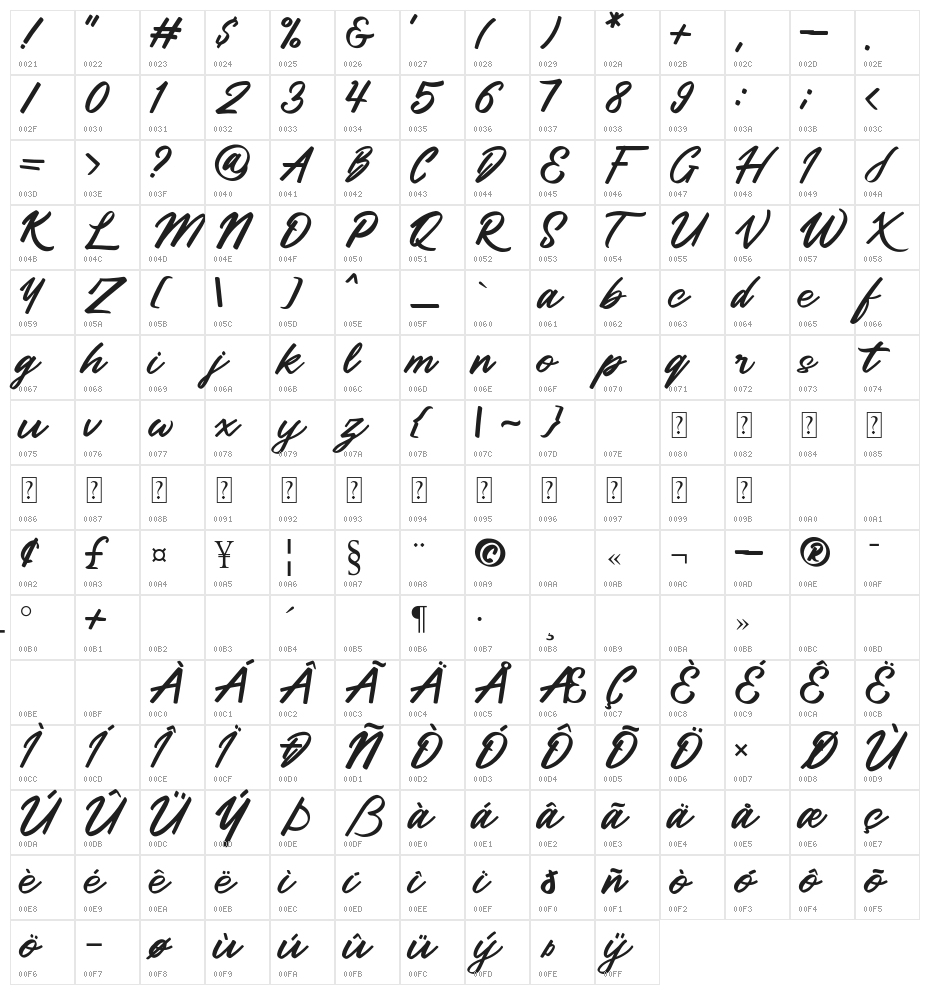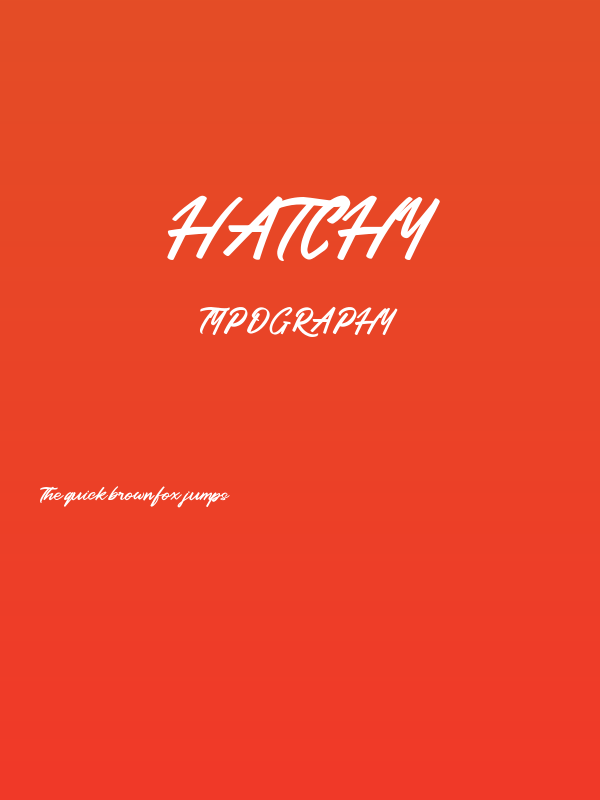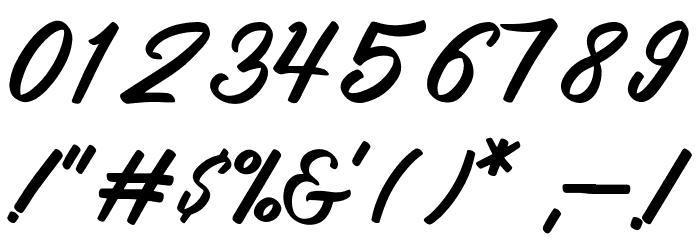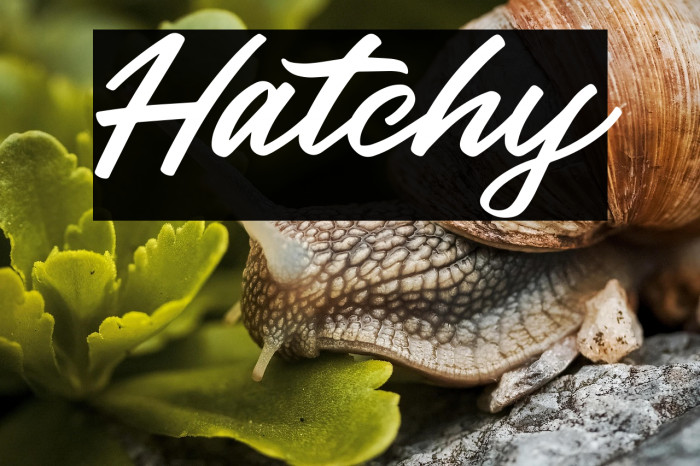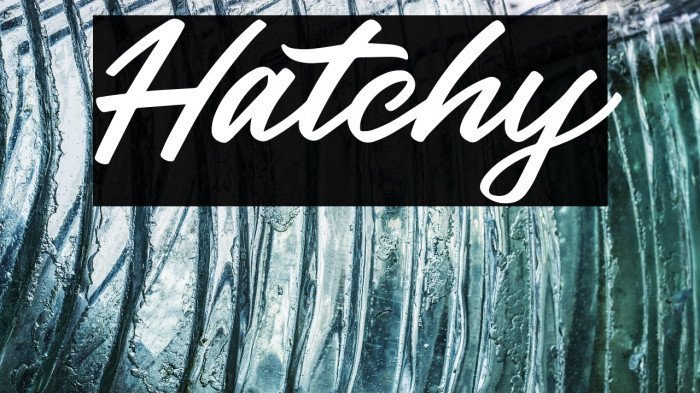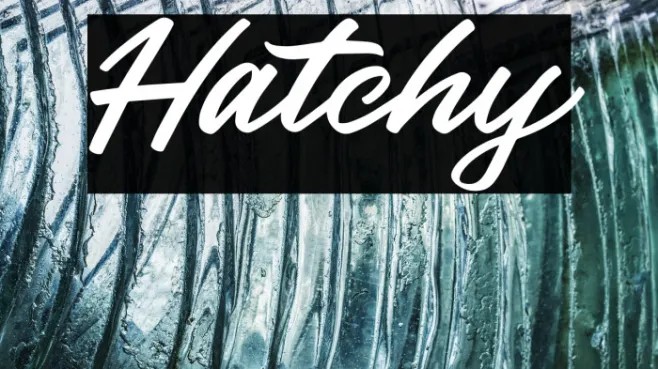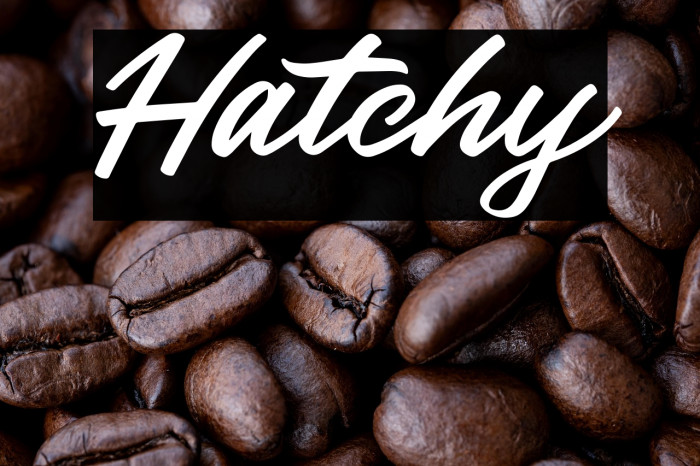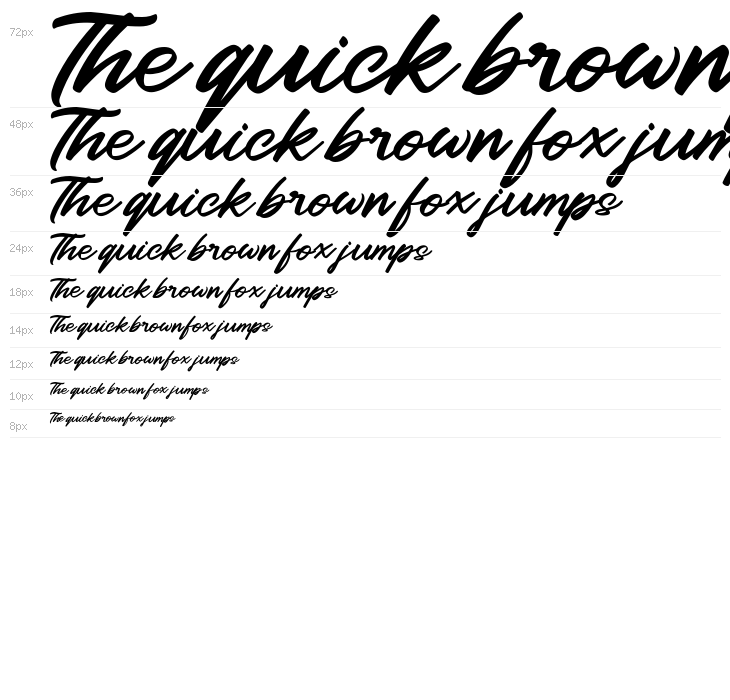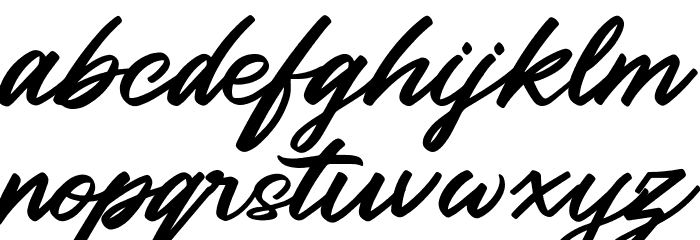
Hatchy Font
Hatchy Description
This font exhibits a dynamic and flowing script style, characterized by its cursive, handwritten appearance. The letters are connected, giving it a seamless and elegant look. The strokes are bold and confident, with a slight slant that adds to its fluidity. The uppercase letters are distinct and prominent, while the lowercase letters maintain a consistent flow. The numerals are clear and legible, matching the overall style of the alphabet. Special characters are integrated smoothly, maintaining the script's cohesive aesthetic. This font is ideal for projects that require a personal touch or a sense of sophistication.